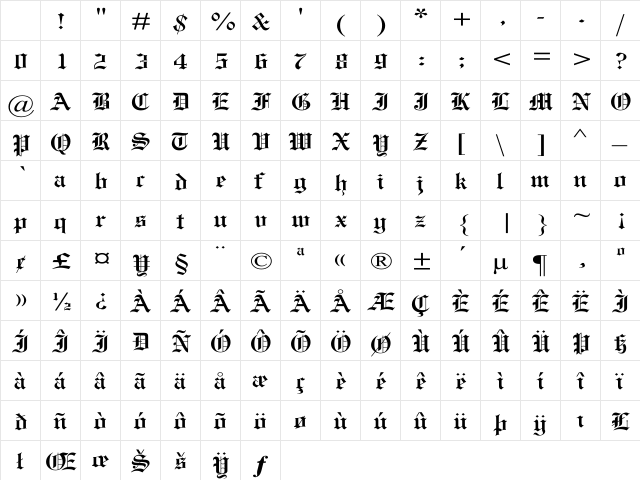
MEngraversOldEnglish Wd Regular
Design Context for MEngraversOldEnglish Wd
MEngraversOldEnglish Wd is a composed and adaptable typeface that performs quietly and consistently across a wide range of design contexts.